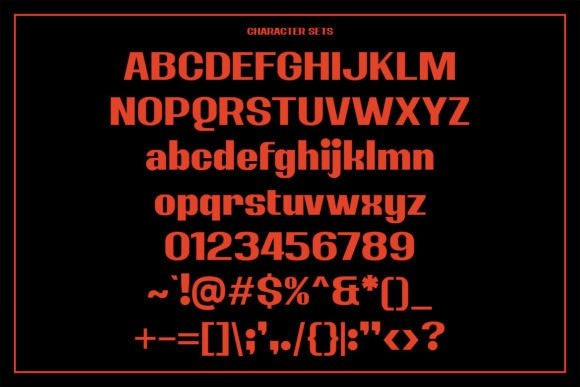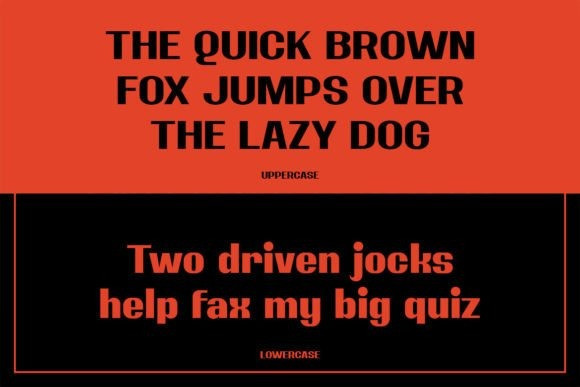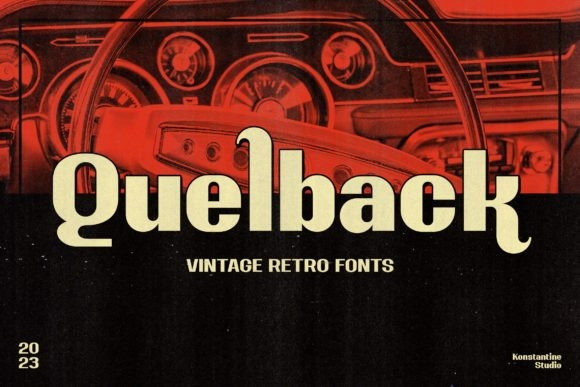
Quelback Font
Quelback Font is a vintage retro font inspired by the first roll of graphic design back in the 70s vintage era. The glory of prints and visual advertising of pop culture in the past.
Perfectly fit for a logo, branding, signage, poster, magazine, books, cover, badges and emblems, clothing, apparel, merchandise, movie title, serials, and many more.